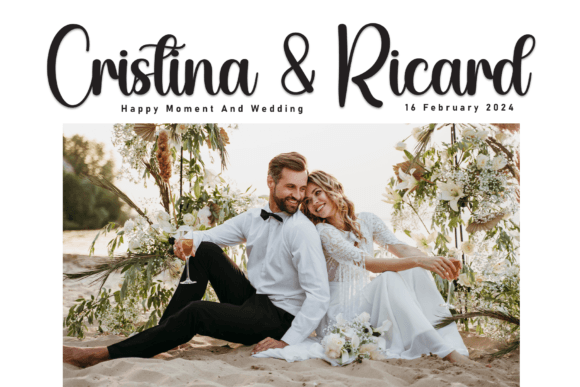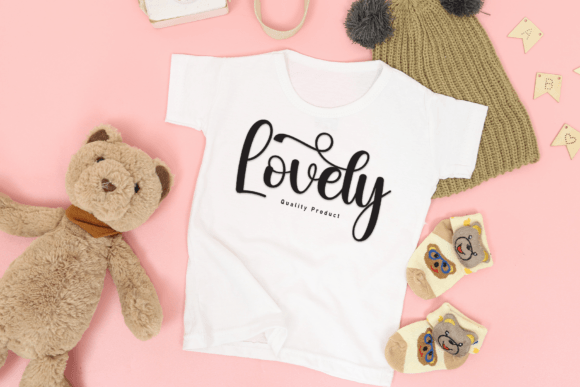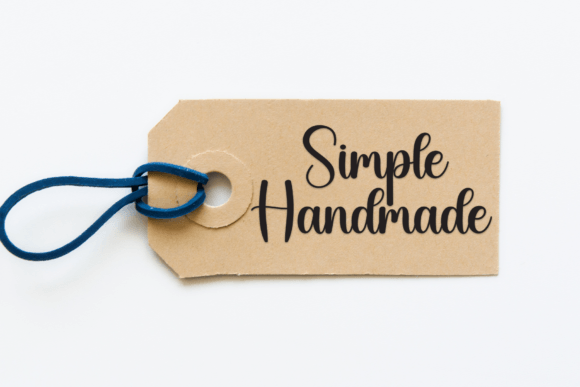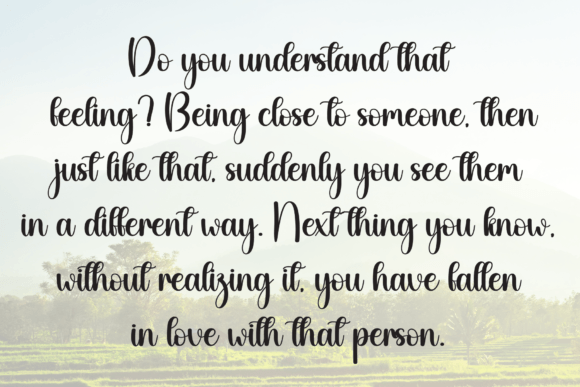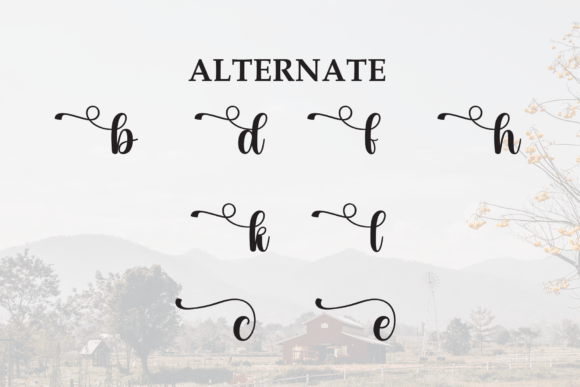
Introducing Farmhouse Font: Elevate Your Creativity with Elegance
Are you a designer, crafter, or DIY enthusiast looking for a font that can add a touch of magic to your creative projects? Look no further than Farmhouse Font, a beautiful script font that combines elegance with a rustic charm. In this article, we’ll explore the features and benefits of Farmhouse Font, and how it can help you turn your creative ideas into stunning works of art.
Farmhouse Font is a carefully crafted script font that is designed to bring a touch of sophistication and whimsy to your designs. With its flowing lines and elegant letterforms, this font is perfect for a wide range of creative projects, from Instagram graphics and social media posts to calligraphy scripts and DIY crafts.
- Elegant Script Style: Farmhouse Font features a beautiful script style that is both elegant and rustic, making it perfect for a wide range of creative projects.
- Magical Touch: With its unique and intricate letterforms, Farmhouse Font adds a touch of magic to any design, making it perfect for designers and crafters who want to create something special.
- High-Quality Design: Farmhouse Font is carefully crafted with attention to detail, ensuring that every letterform is of the highest quality and perfect for use in a variety of creative projects.
- Versatile: Whether you’re looking for a font for Instagram, a calligraphy script for DIY projects, or a font for use in your graphic design work, Farmhouse Font is the perfect choice.
Uses for Farmhouse Font
Farmhouse Font is a versatile font that can be used in a wide range of creative projects, including:
- Instagram Graphics: Add a touch of elegance to your Instagram posts and stories with Farmhouse Font.
- Calligraphy Scripts: Use Farmhouse Font to create beautiful calligraphy scripts for DIY projects, such as wedding invitations, party decorations, and more.
- Graphic Design: Farmhouse Font is perfect for use in graphic design projects, such as brochures, flyers, and posters.
- DIY Crafts: Use Farmhouse Font to add a personal touch to your DIY crafts, such as handmade cards, gift tags, and more.
Benefits of Using Farmhouse Font
By using Farmhouse Font in your creative projects, you’ll enjoy a range of benefits, including:
- Unique and Eye-Catching Designs: Farmhouse Font helps you create unique and eye-catching designs that will stand out from the crowd.
- Elegant and Sophisticated Look: With Farmhouse Font, you can add an elegant and sophisticated touch to your designs, making them perfect for special occasions and events.